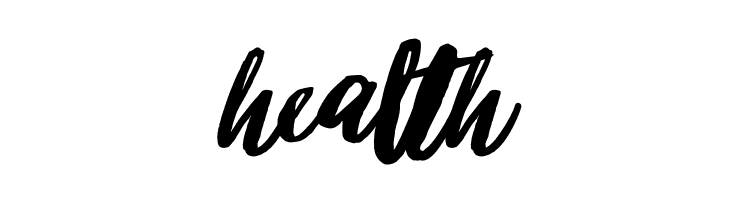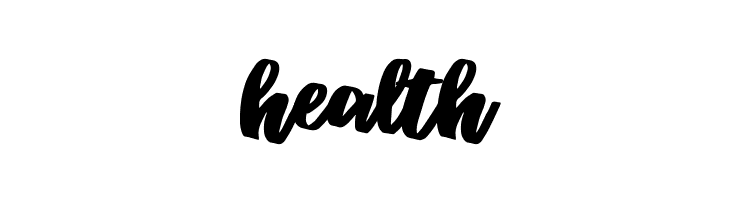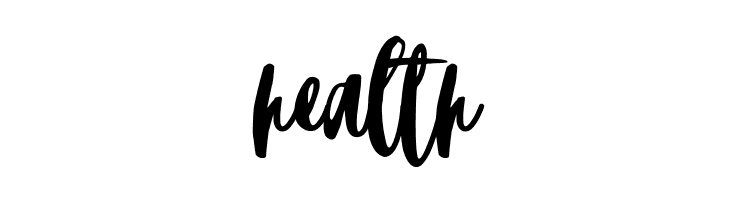
( Fonts by Katsia Jazwinska )
A bold, expressive script font with a hand-drawn, dynamic style.
( Fonts by Katsia Jazwinska )
A bold, expressive script font with dynamic curves and a modern style.
( Fonts by Katsia Jazwinska )
A bold, expressive script font with a hand-drawn, brush-like texture.
( Fonts by Katsia Jazwinska )
A bold, expressive handwritten font with fluid, connected strokes.
( Fonts by Katsia Jazwinska )
A bold, expressive script font with a hand-drawn, artistic style.
( Fonts by Katsia Jazwinska )
A bold, expressive brush-style font with dynamic, hand-painted strokes.
A bold, expressive script font with a hand-drawn, lively style.
A playful, eclectic font with bold, decorative characters featuring unique patterns.
A bold, expressive handwritten font with dynamic strokes and a playful style.
A playful, handwritten font with tall, narrow, and slightly irregular strokes.